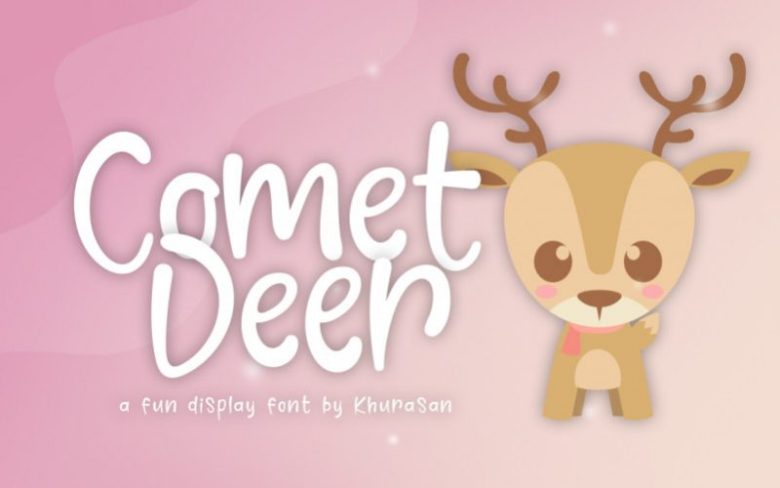
Comet Deer Display Font
The Comet Deer Display Font is a fun display font, fresh & modern style. Comet Deer Font suitable for logo, branding, greeting card, poster and any design that you create.